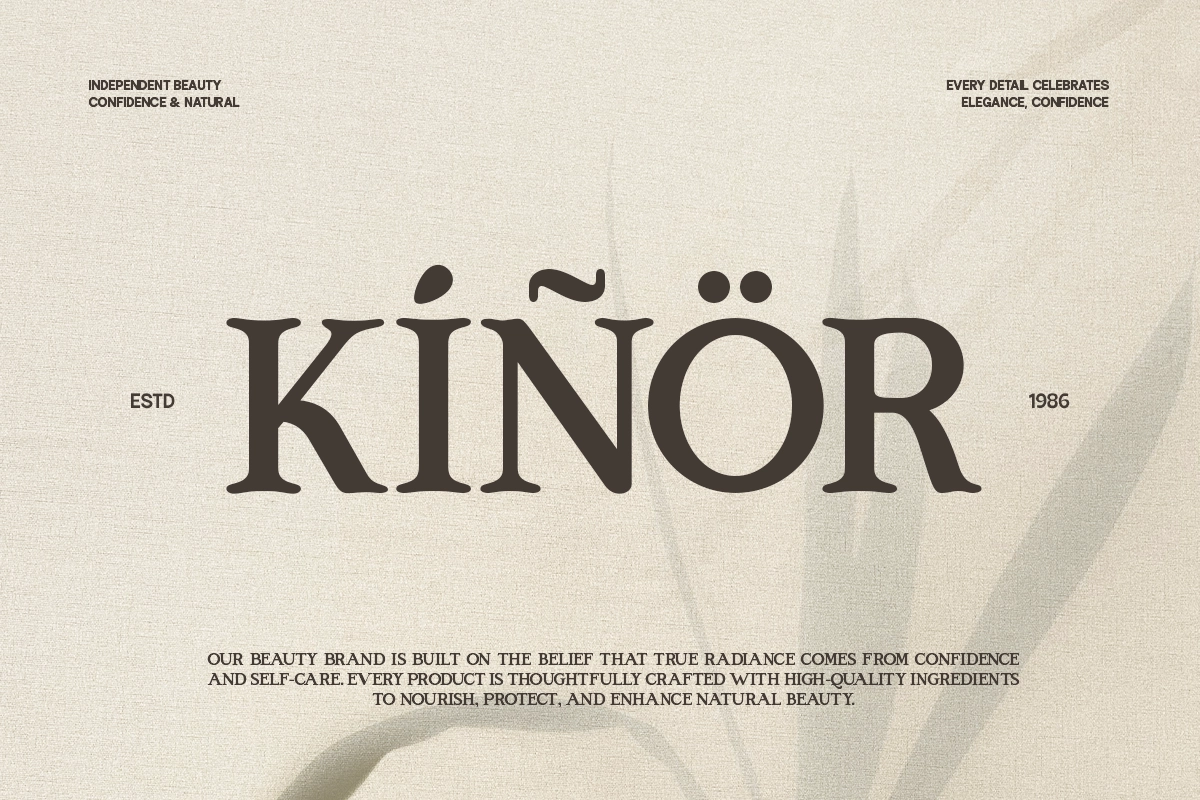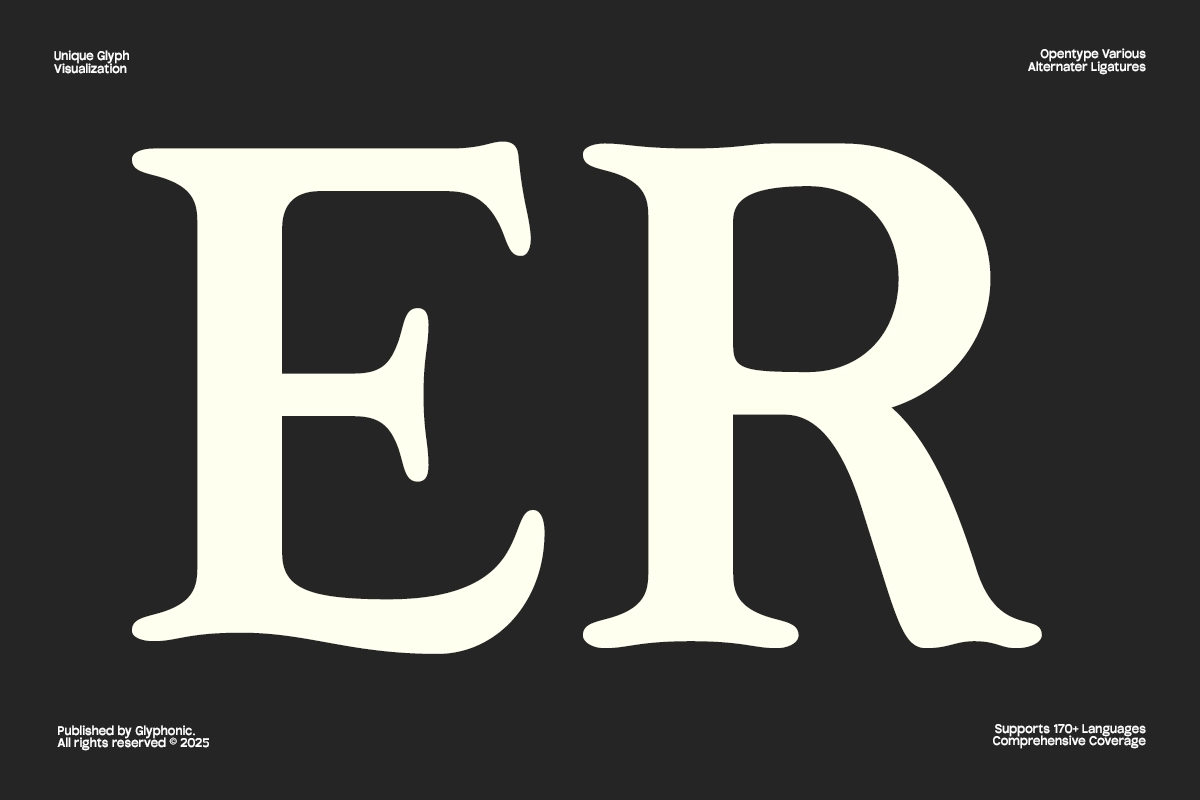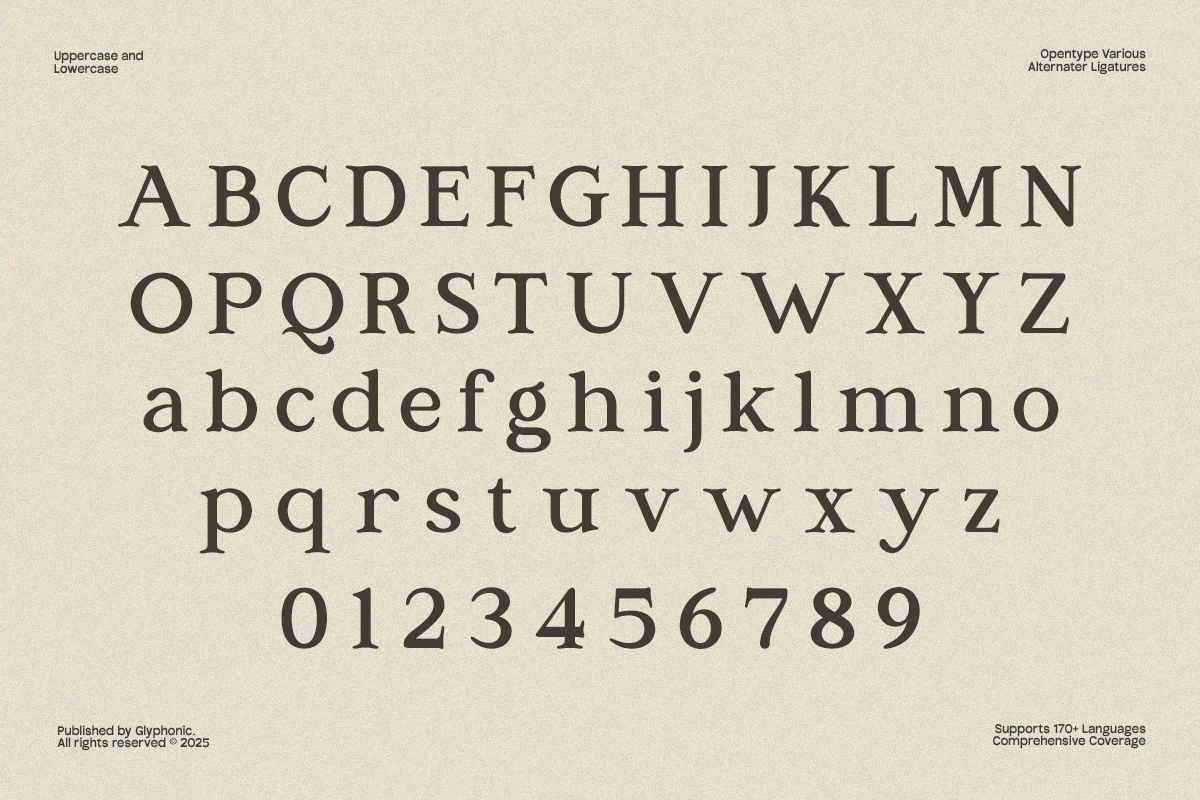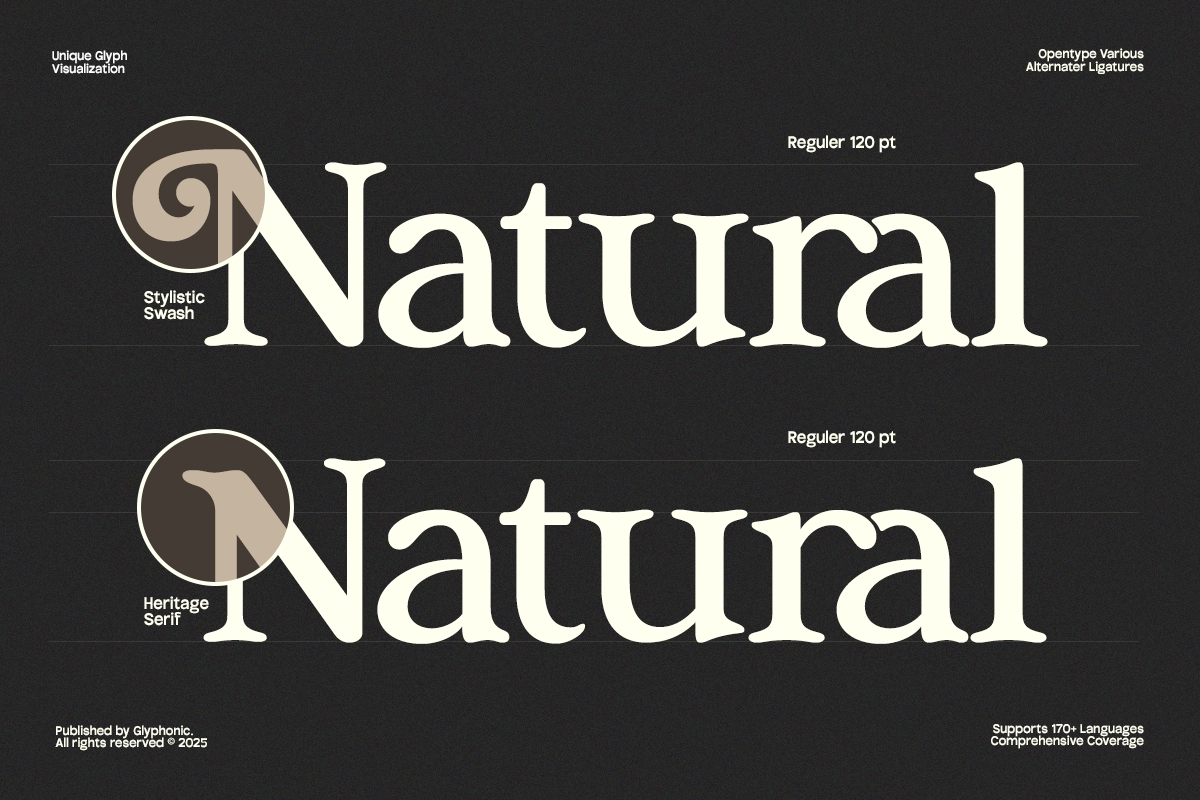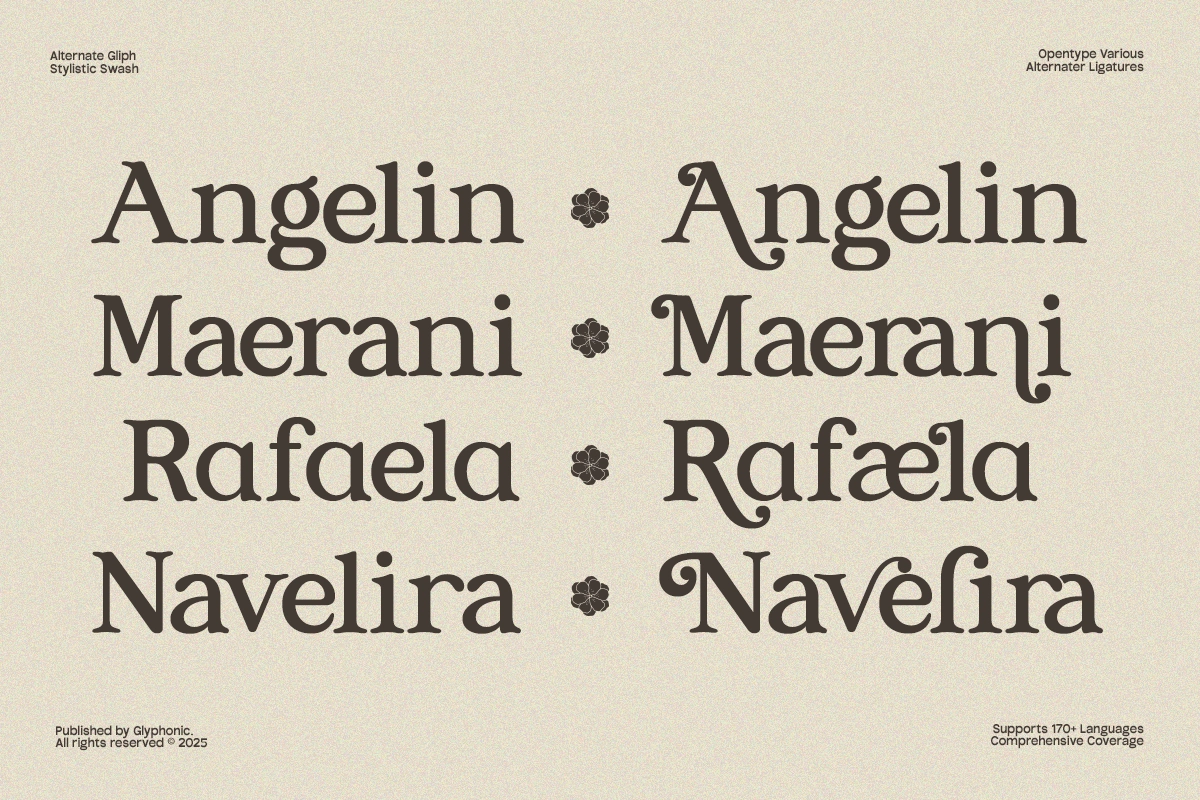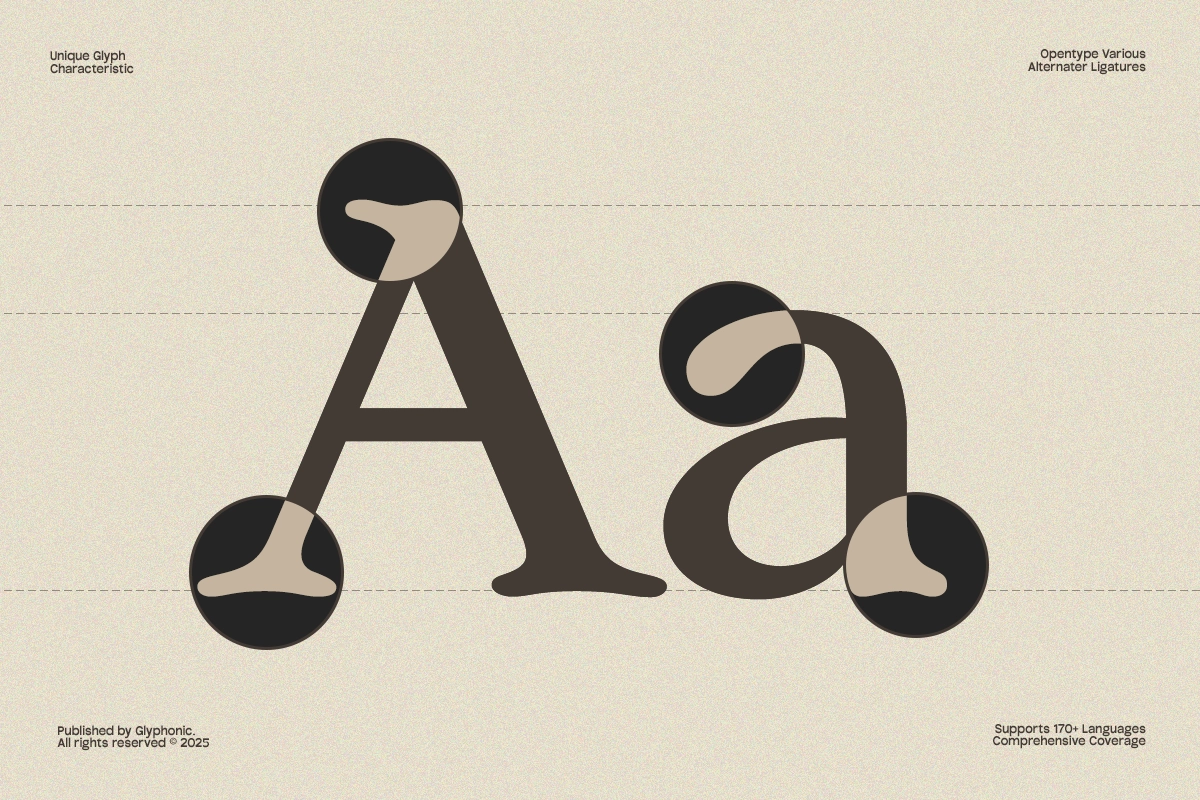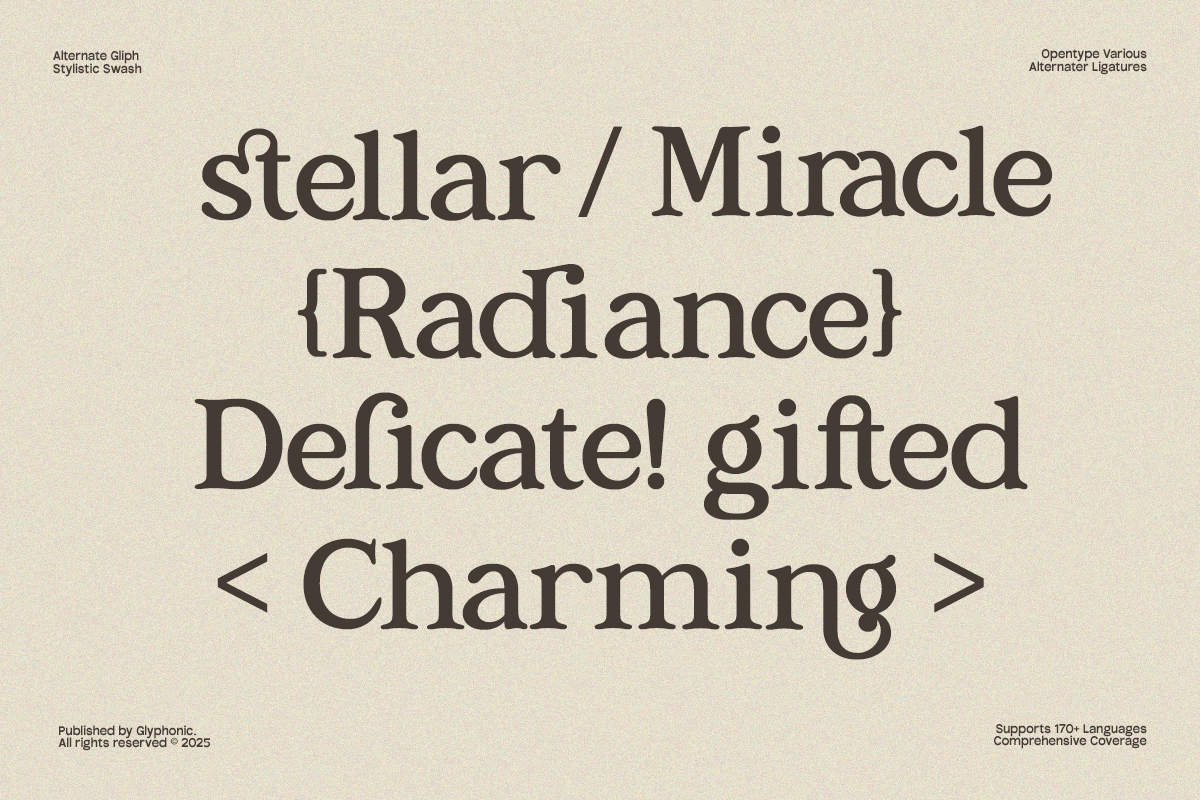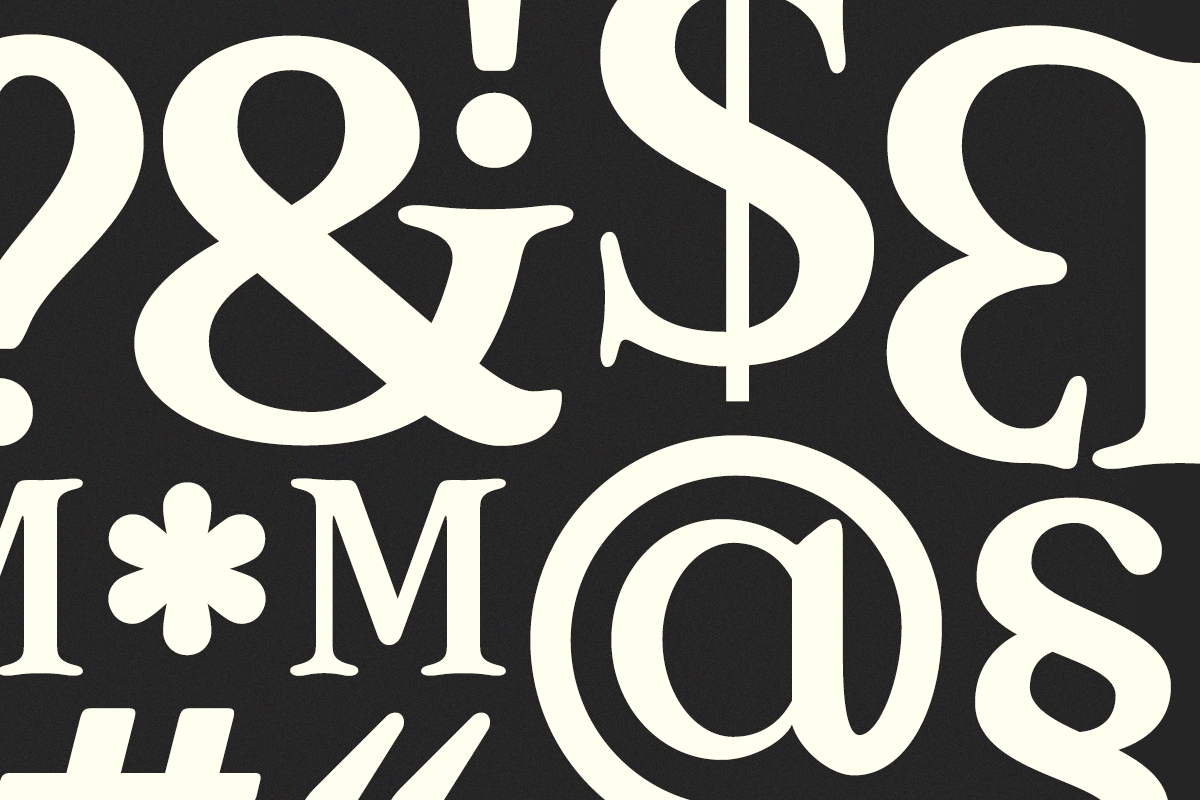
GC Kind Endlict – Elegant RetroSerif
GC Kind Endlict — Elegant Retro Serif is a distinctive serif typeface crafted with a blend of vintage charm and modern refinement. With its unique curves, decorative details, and bold presence, it brings a timeless character that works beautifully across both digital and print media. Designed to embody elegance with a touch of retro artistry, it’s perfect for branding, editorial layouts, packaging, invitations, and striking visual identities.
Balanced proportions and refined detailing make GC Kind Endlict adaptable yet full of personality. Whether you’re creating stylish headlines, nostalgic posters, or elegant brand marks, this font adds sophistication, originality, and a classic retro spirit to your typography.
- Alternates & Ligatures
- Multilingual Support (170+ Languages)
Bring elegance, charm, and a timeless retro touch to your designs with GC Kind Endlict.